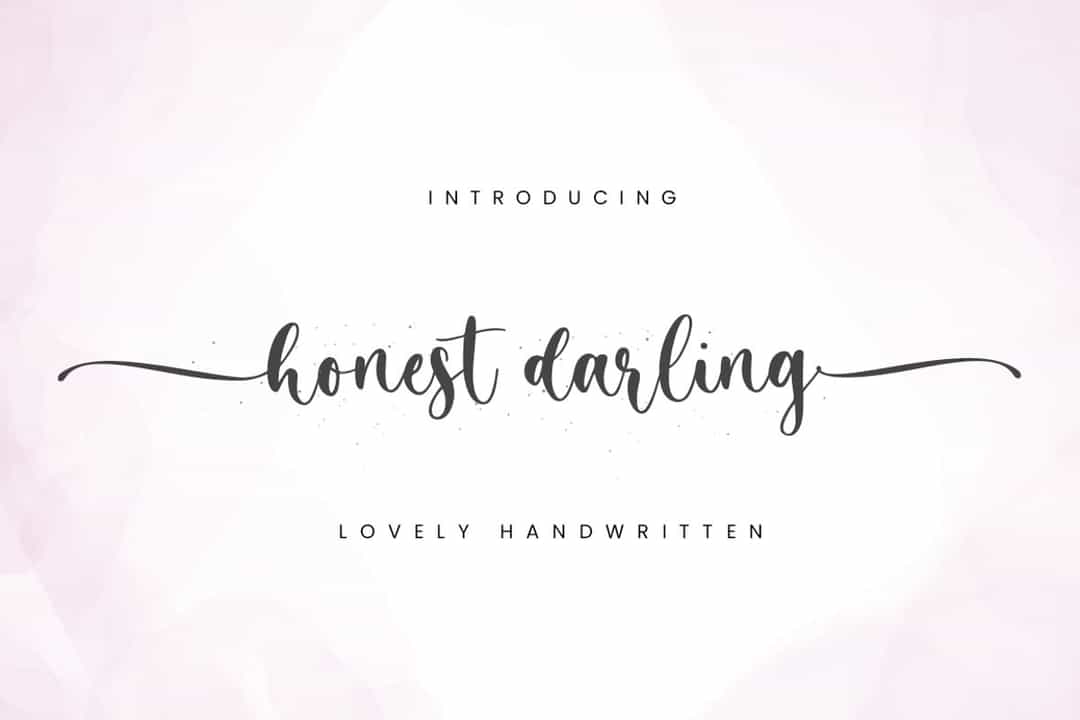
Honest Darling is an elegant and beautiful calligraphy font done by hand and is ideal for brand use, invitations, stationery and wedding designs, advertisements, social media, packaging, product designs, labels, watermarks, photography, occasions and more.